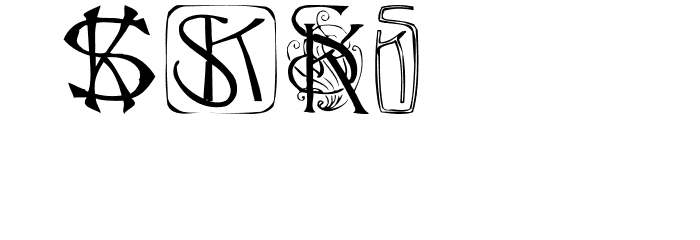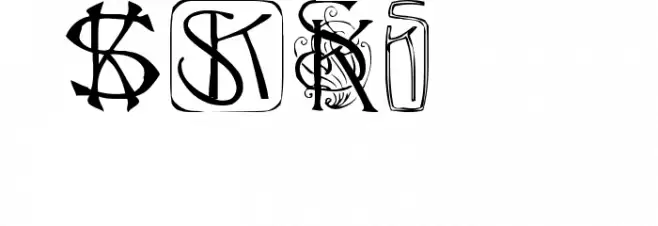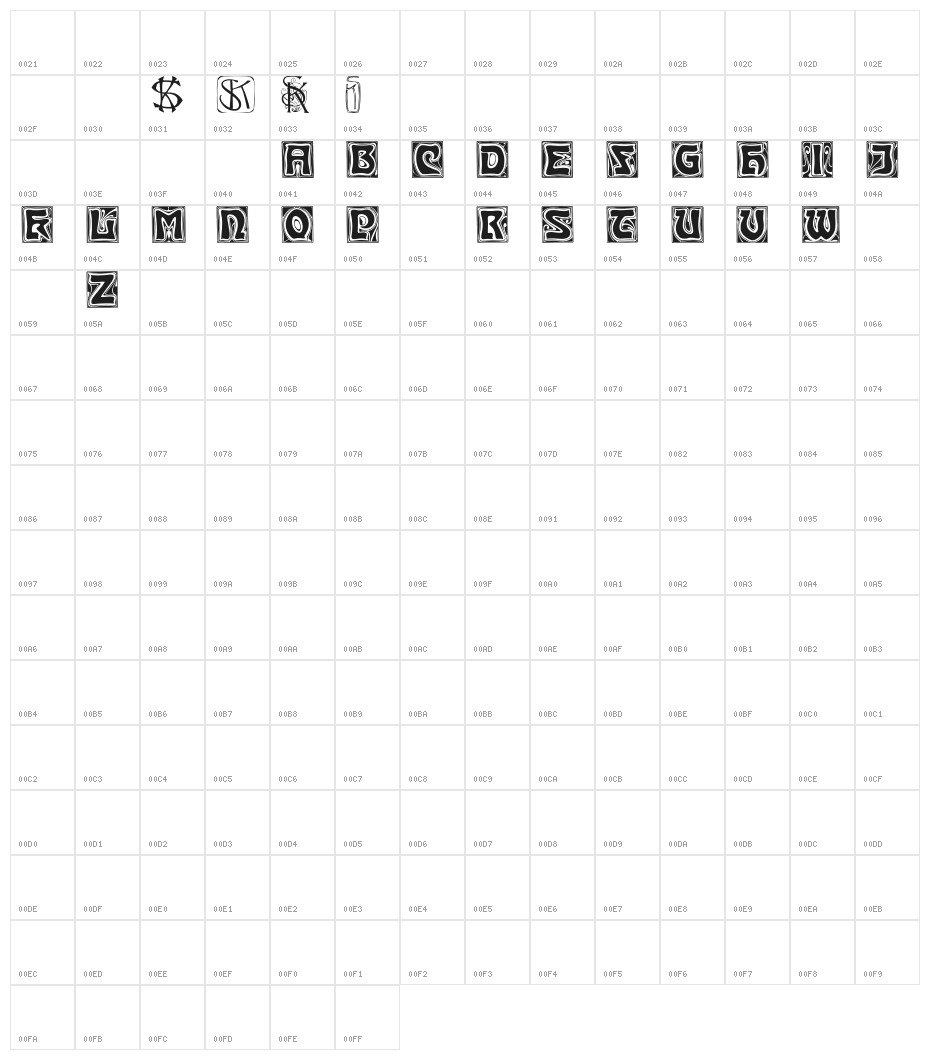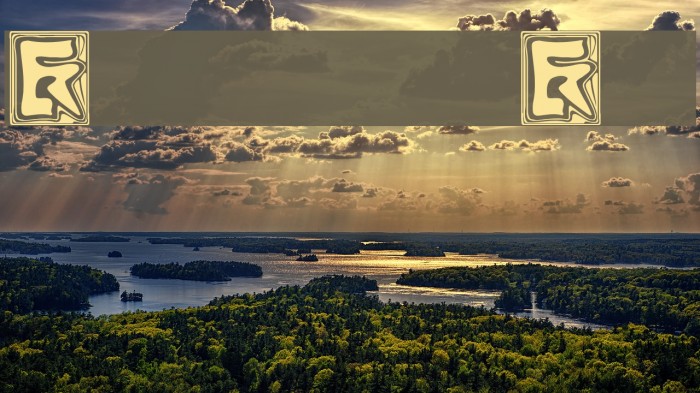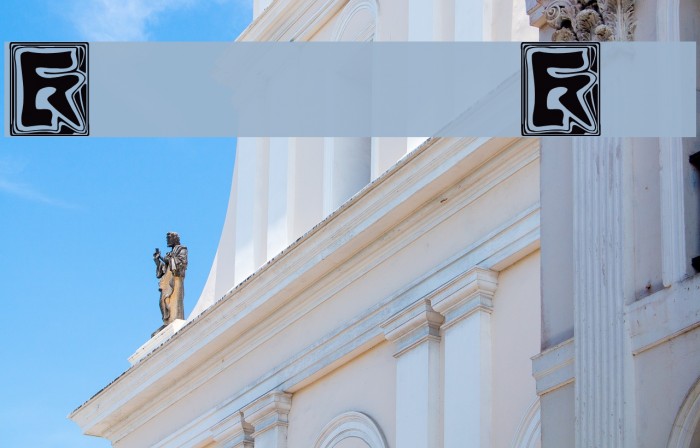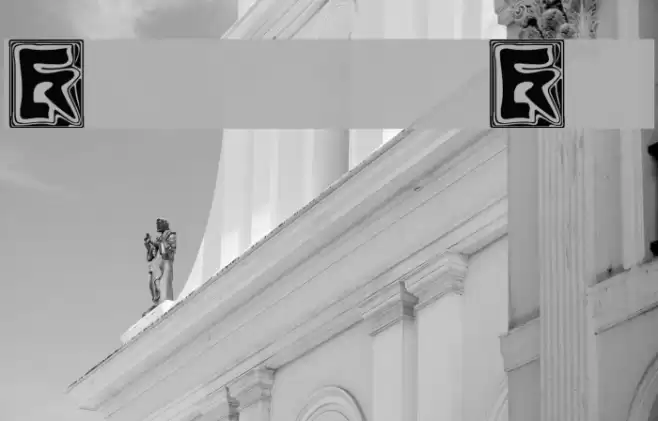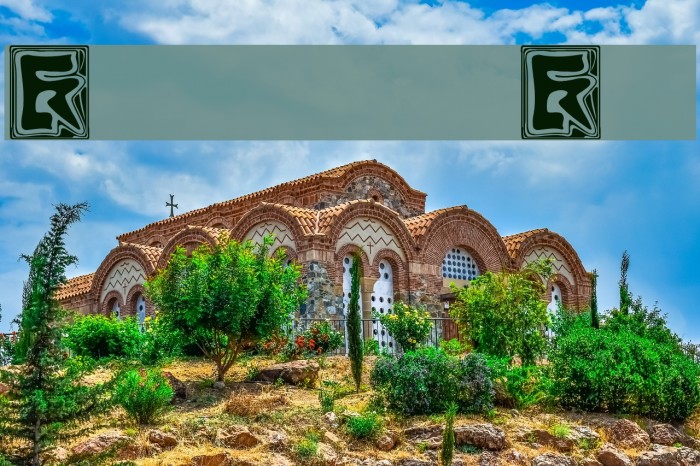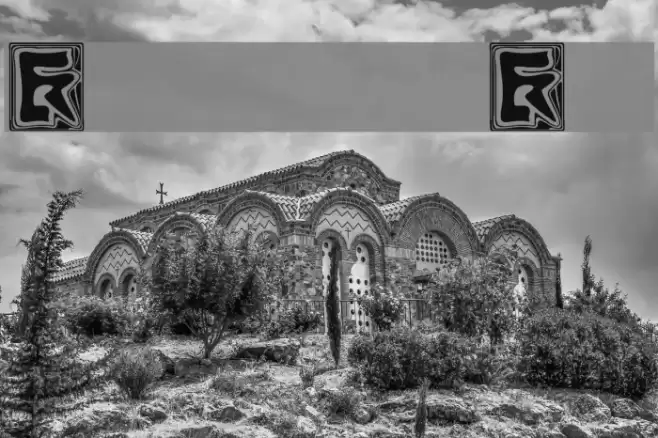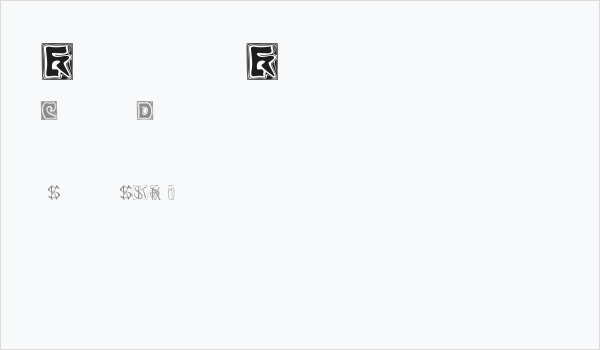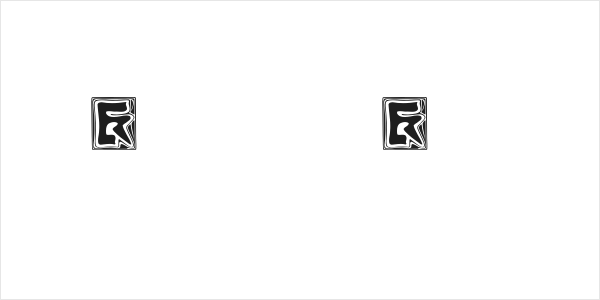
KinigsteinKaps Font
KinigsteinKaps Description
This font features a highly decorative and intricate design, characterized by bold, swirling patterns within each letterform. The uppercase letters are enclosed in square frames, adding a sense of structure to the otherwise fluid and ornate style. The font exhibits a strong visual impact with its complex, intertwining lines and high contrast between thick and thin strokes. The special characters continue the theme of elaborate embellishments, making them stand out as unique symbols. This font is ideal for projects that require a dramatic and artistic flair.
| Proposed Projects | Ideal for artistic posters, album covers, branding for luxury products, and decorative headings. |